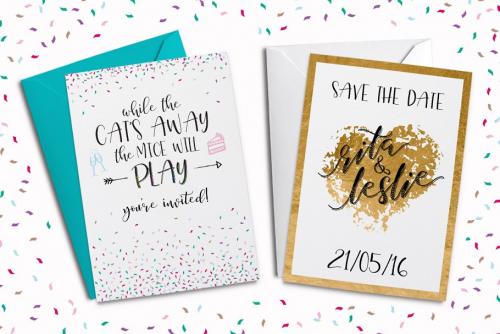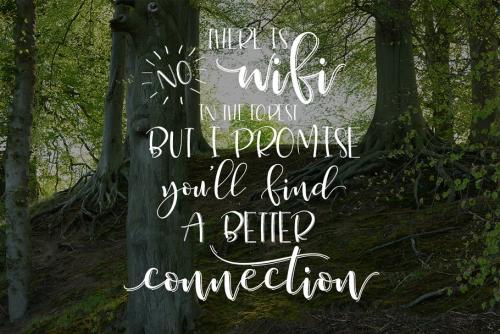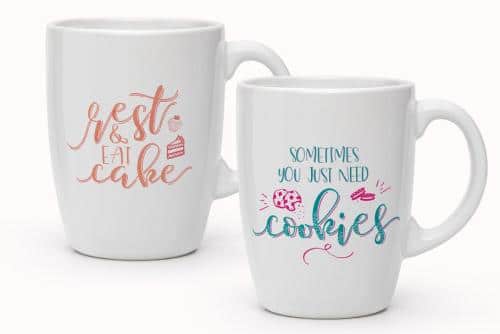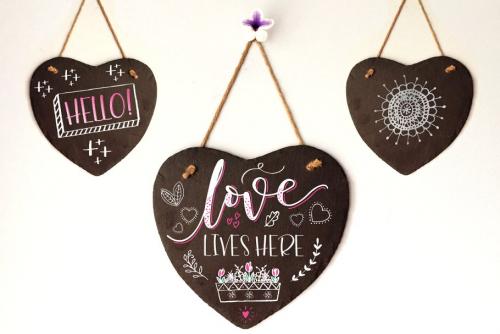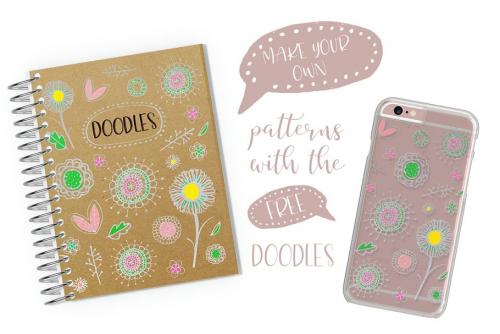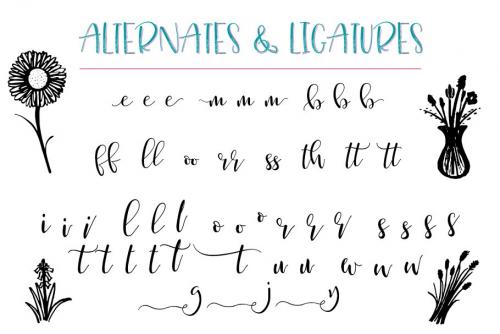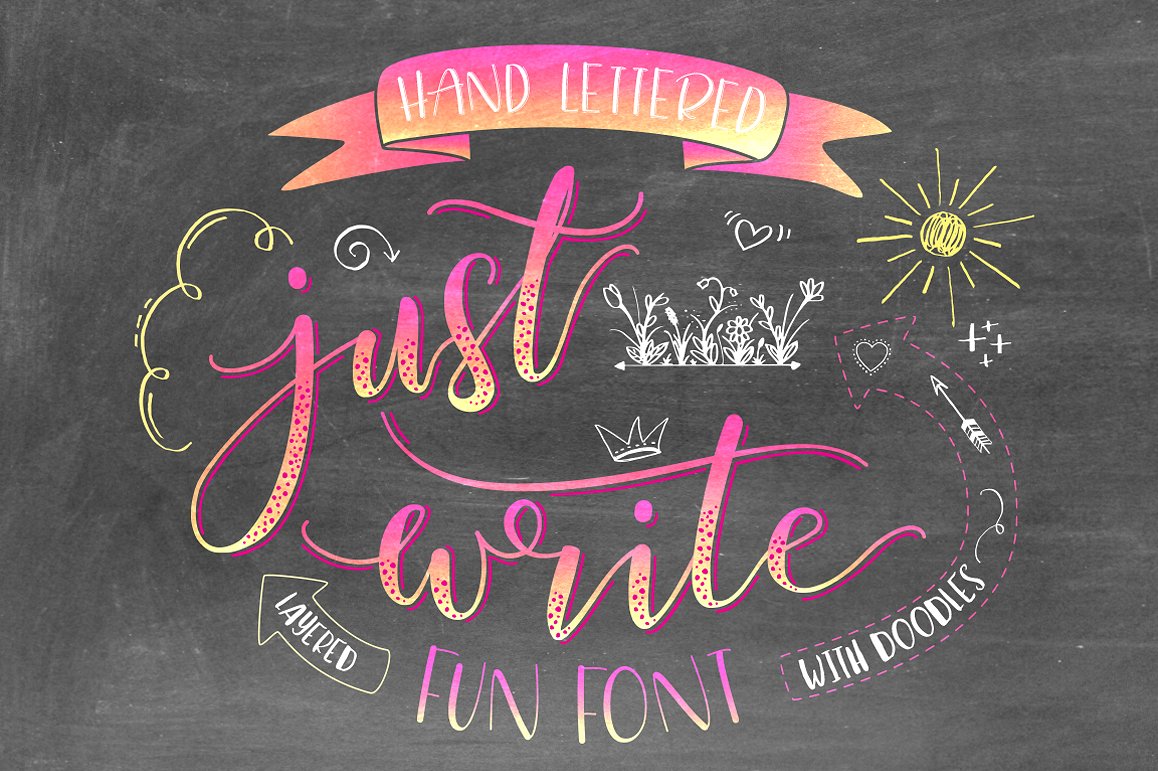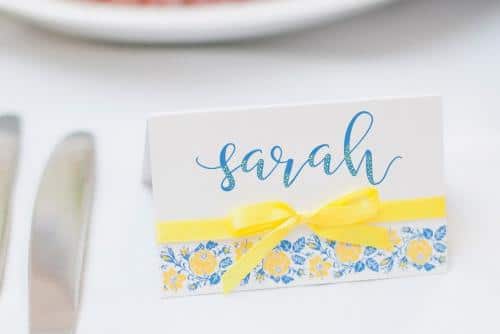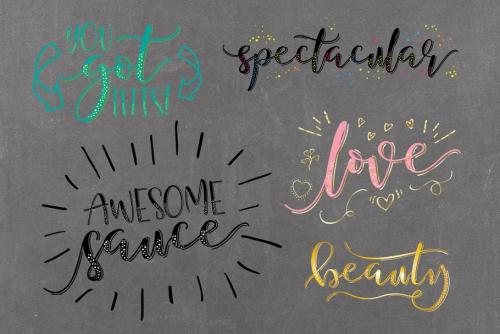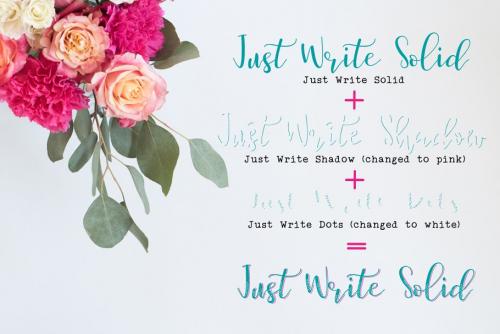
Just Write Hand Lettered Font
You can really make your designs POP with Just Write Hand Lettered Font! Here’s a lovely script font which includes ligatures and alternates AND some FREE doodles! YEY!